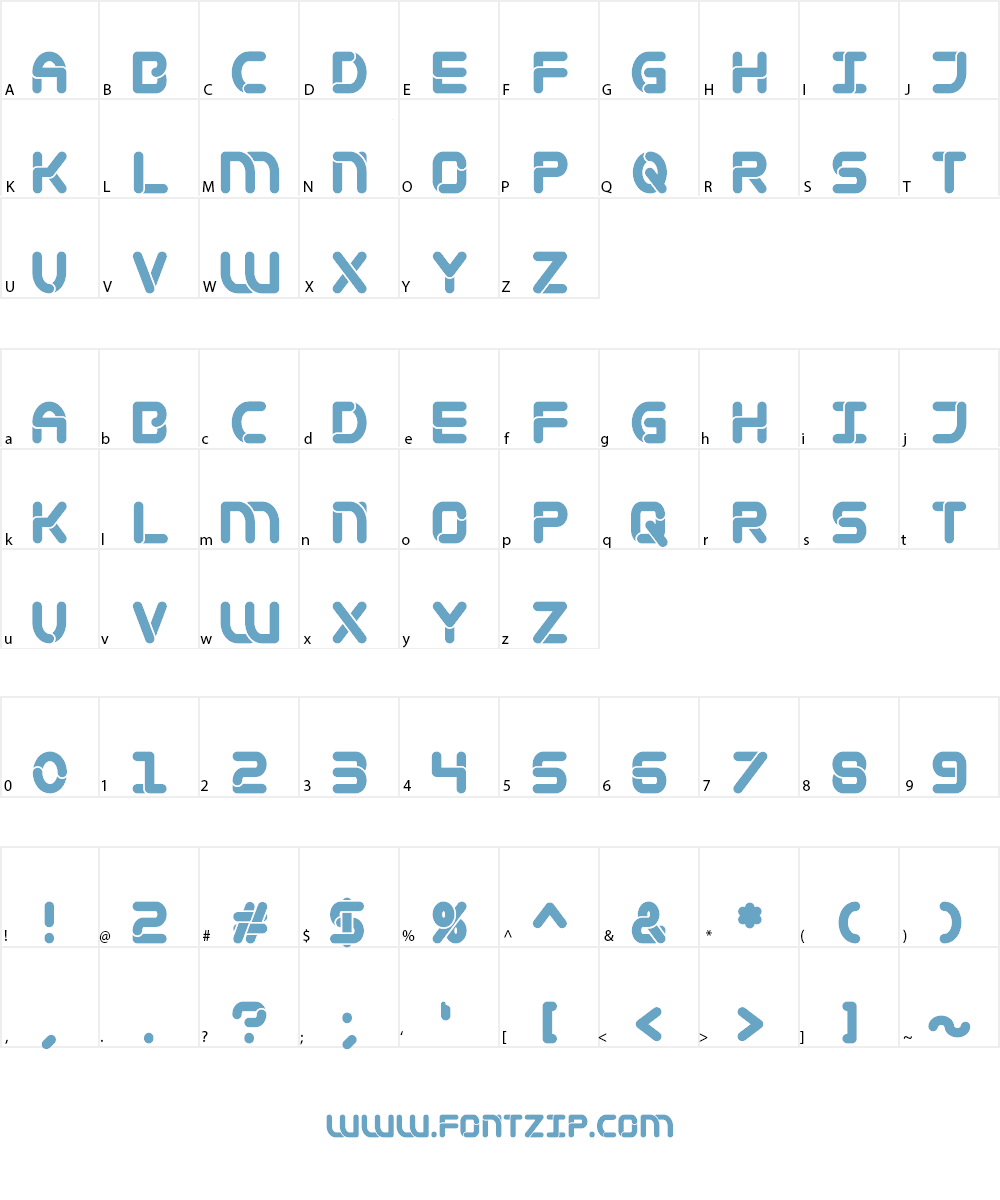
Mametosca 026 is an experimental font family of Hefenstrasse Lab.
available only uppercase. but there are some rudimentary glyph, please understandable.